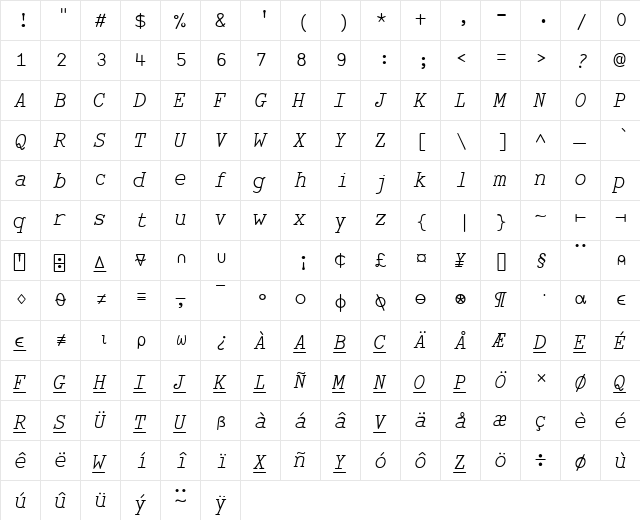
Dyalog Std TT Regular
Design Context for Dyalog Std TT Typeface
Dyalog Std TT takes a measured approach to typography — its balanced proportions and neutral character make it a reliable workhorse for both digital and print work.
Pro Tip: Use Dyalog Std TT in both headline and body roles to test its range before committing to a single application.